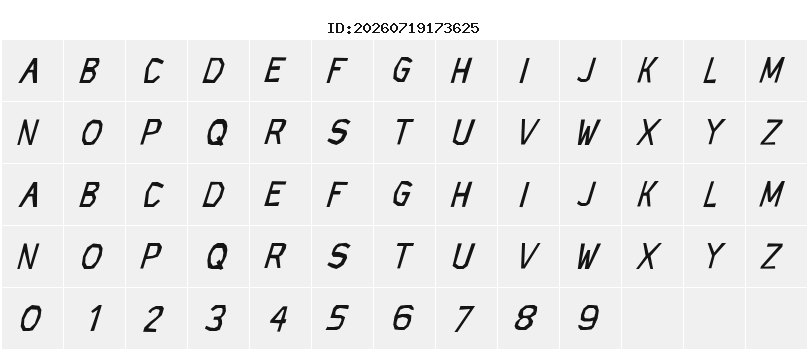
CF Rock Age Preview
• Font Name: CF Rock Age
• Font ID: CloutierFontes: CF Rock Age Inclined:
• Full Font Name: CF Rock Age Inclined
• Version: Version 1.00 2013
• PostScript Name: CFRockAge-Inclined
• Designer: Steve Cloutier
• Manufacturer: CloutierFontes
• Description: CF Rock Age Regular is a font by CloutierFontes, designed by Steve Cloutier in 2013.
About CF Rock Age.ttf
CF Rock Age.ttf is a modern, elegant sans-serif font designed for ultimate readability and visual harmony. Perfect for branding, headlines, web design, and print materials.